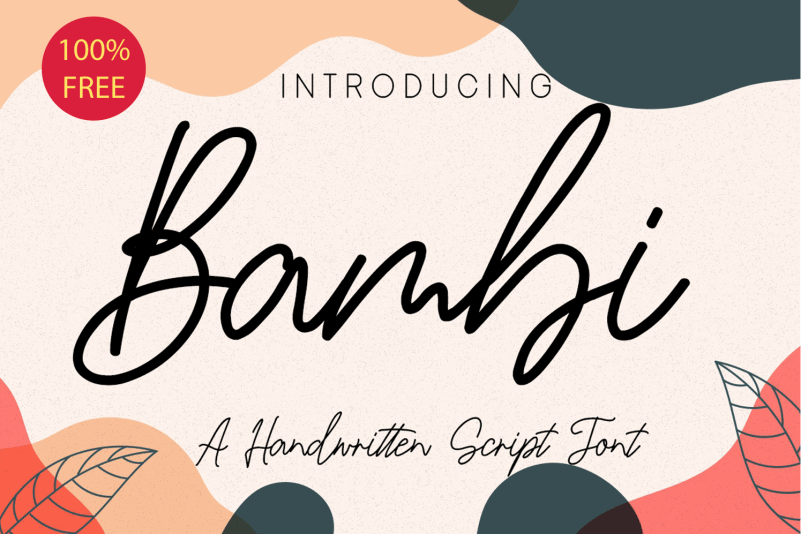
Bambi Handwritten Font
Introducing Bambi Handwritten Font, It is an elegant modern handwritten font with casual writing. It is perfect for branding, signature logo, wedding invitation, photography, and you can use and take advantage of Bambi, for promotional material and anything.